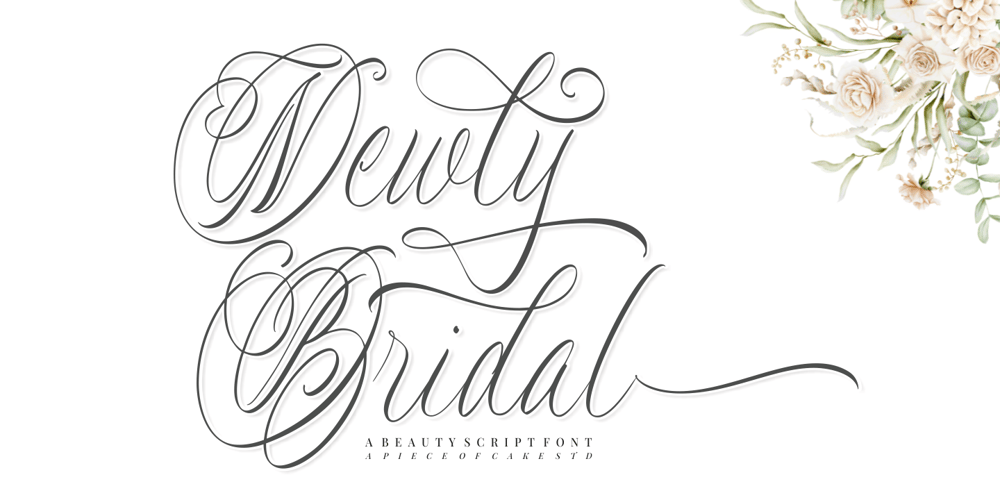
Newly Bridal Font Family was designed by Muh. Aswar, Andi Syahdang and published by Piece of Cake Typework. Newly Bridal contains 1 styles and family package options. Hello World,Introducing, Newly Bridal is a lovely script font suitable for your design project needs, such as; wedding themes, Valentine’s themes, social media posts, quotes, overlays on images, tagline logos, posters, print needs, website banners, and more.Features A set of uppercase and lowercase glyphs Number, symbol, and punctuation Multilingual Support Alternates and middle connecting swash So Easy to UseAccess middle Swashes by keyboard key plus ‘ + ‘ to feature middle swash 1 key equal ‘ = ‘ to feature middle swash 2 For Example: type love+youThank you a million times for downloading and using this font for your projects. Enjoy this font and happy creating!Thank You